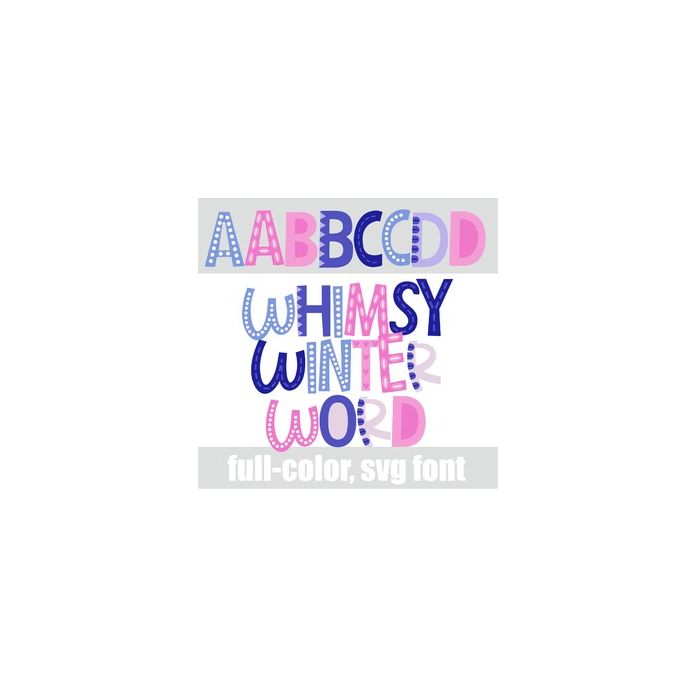
This full-color font features patterns and designs in a winter color palette. There is an alt case w/ additional colors you can access through your system or Silhouette's glyph map.